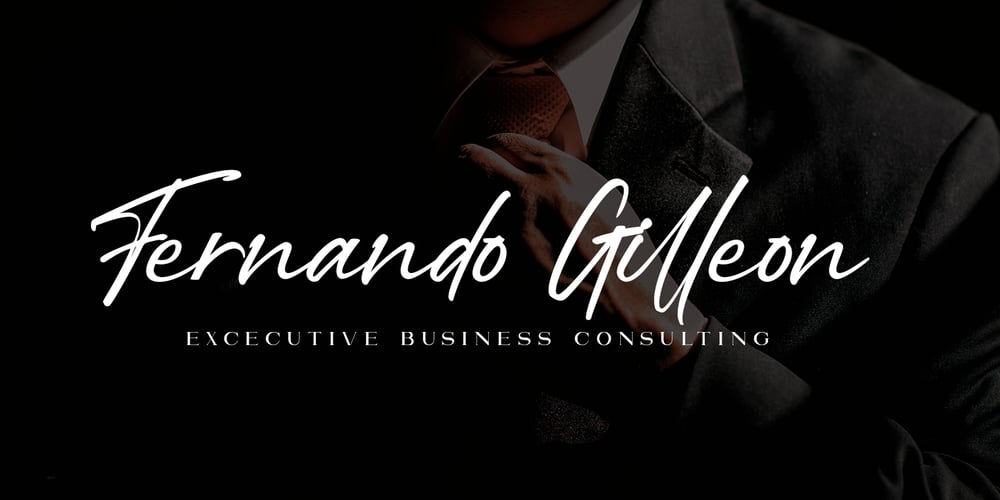
Right Female Font Family was designed by Sarwo Edhi Prayitno and published by Haksen. Right Female contains 2 styles and family package options. Right Female is an elegant bold script with natural texture. I designed it with my own hand-writting style. I really hope you will enjoy it so much when using this font. I love using this one with layer masks in Photoshop, really look natural written. Right Female Script includes over couple ligatures to make everything look totally hand-done. What’s Included: – OTF files – Ligatures in script – Numbers + Punctuation – Non-English support – Swashes If you are interested in more fonts of mine: https://creativemarket.com/Haksen/3908083-Attention-l-Combine-with-Extra-Bonus Please contact me if anything question, I’m glad to help ๐ Happy Designing, Haksen